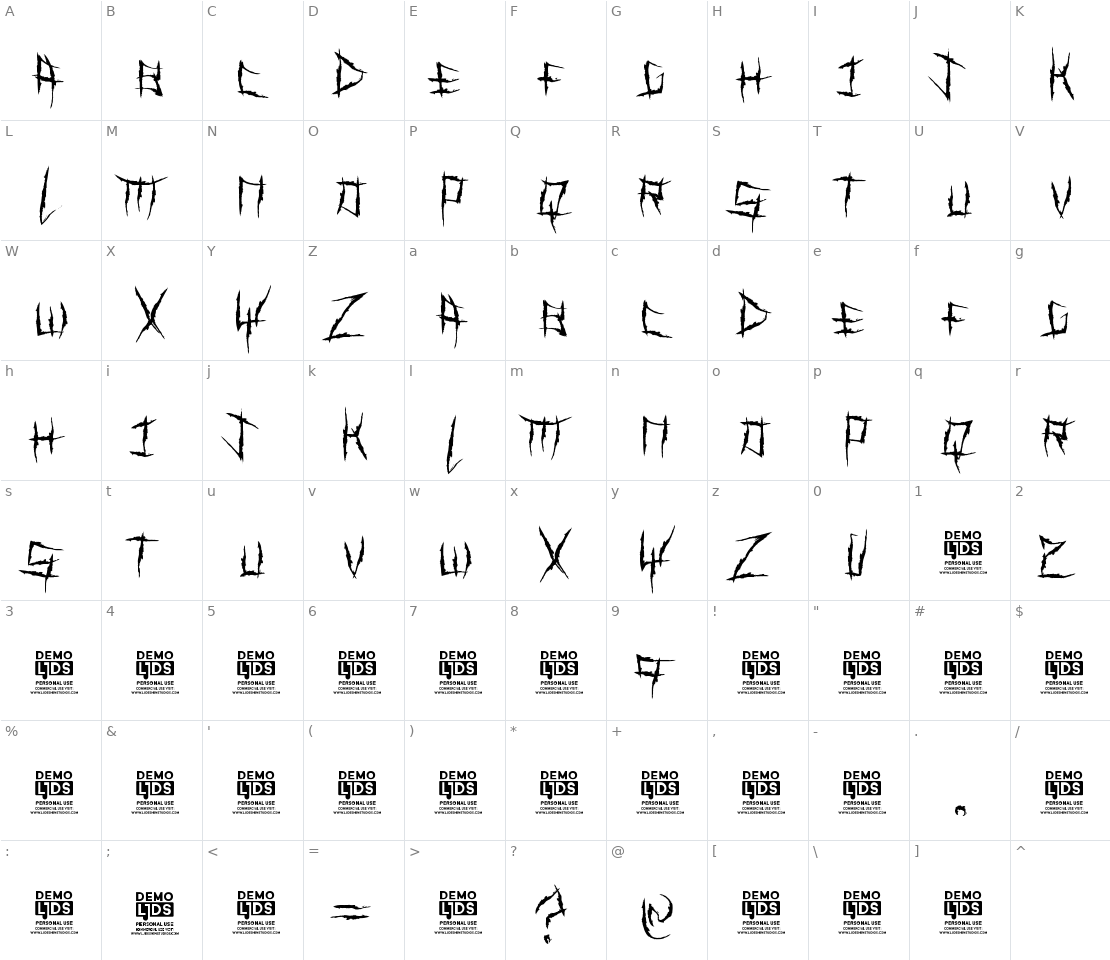
Demon Killer
Demon Killer is a jagged, spiky display face from LJ Design Studios that looks like it was clawed into existence. The letterforms are sharp and scratchy, with distressed edges and aggressive angles that scream death metal and horror. Built strictly for headlines, band logos, and dark-themed artwork where the type itself needs to feel dangerous.